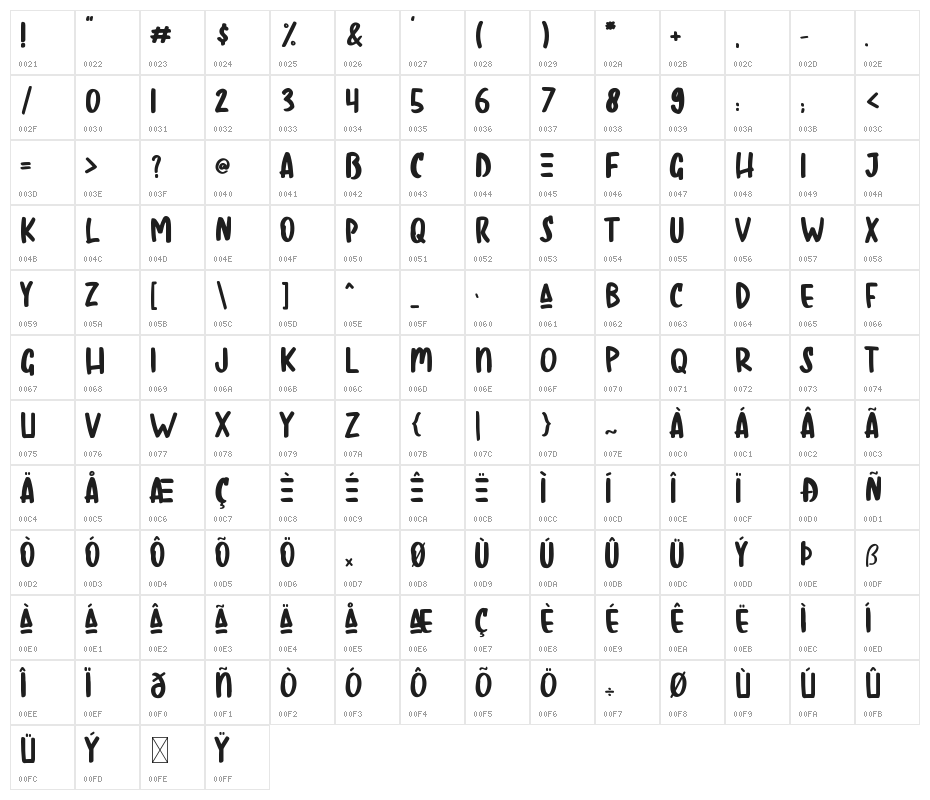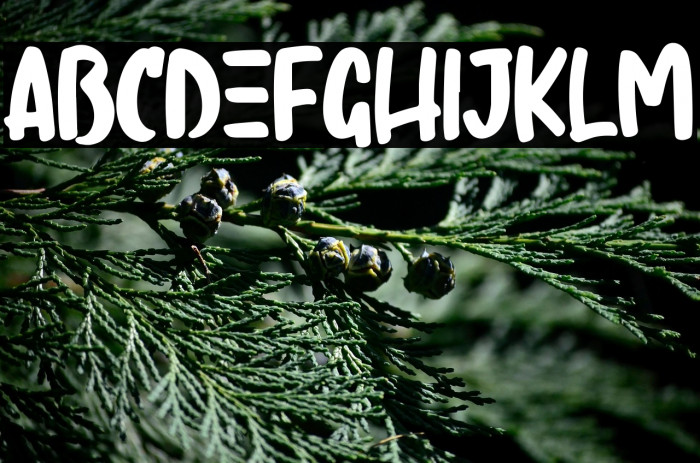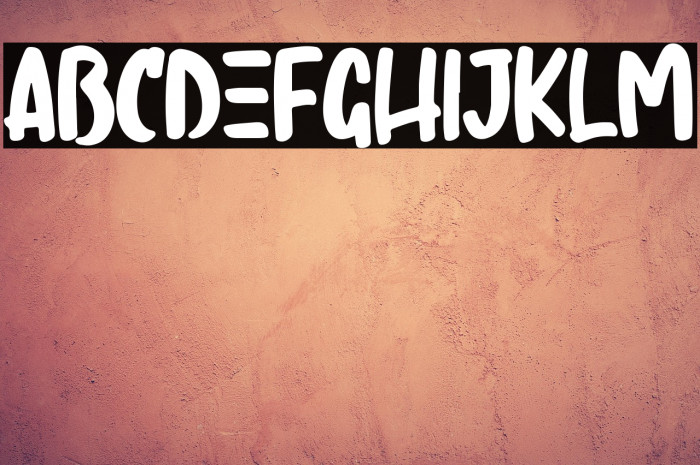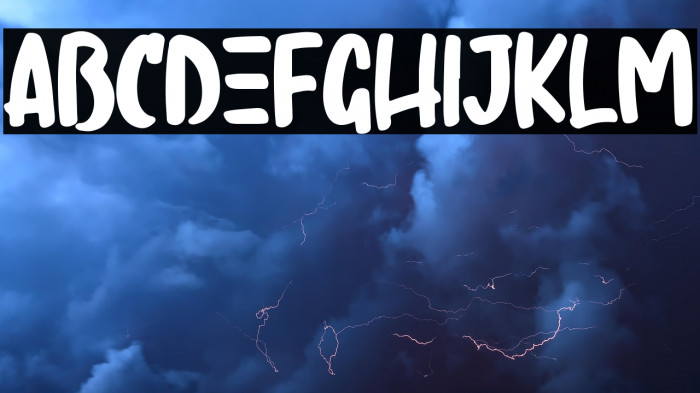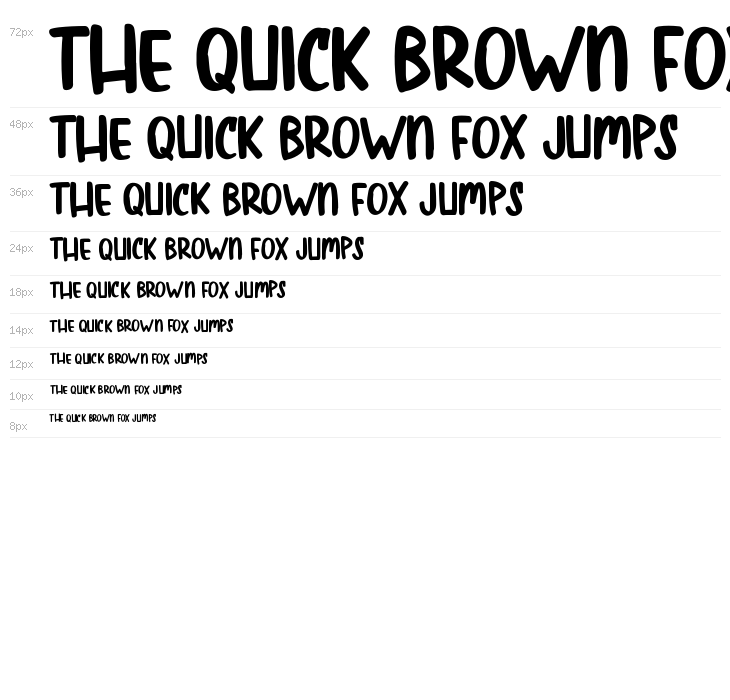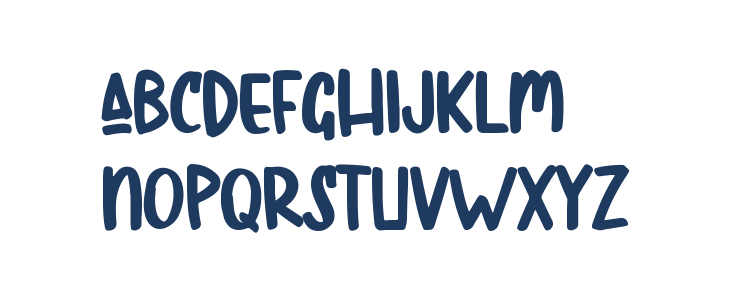
Regist Bong Font
Regist Bong Description
This font features a bold and playful style with thick, rounded strokes that give it a friendly and approachable appearance. The characters are slightly irregular, adding a hand-drawn feel that enhances its charm. The uppercase and lowercase letters maintain consistent proportions, while the numerals and special characters are designed to match the overall aesthetic. The font's boldness ensures high readability, making it suitable for various creative applications.
| Overall Style | Playful, Hand-drawn |
| Proposed Projects | Ideal for children's books, playful branding, posters, and social media graphics. |